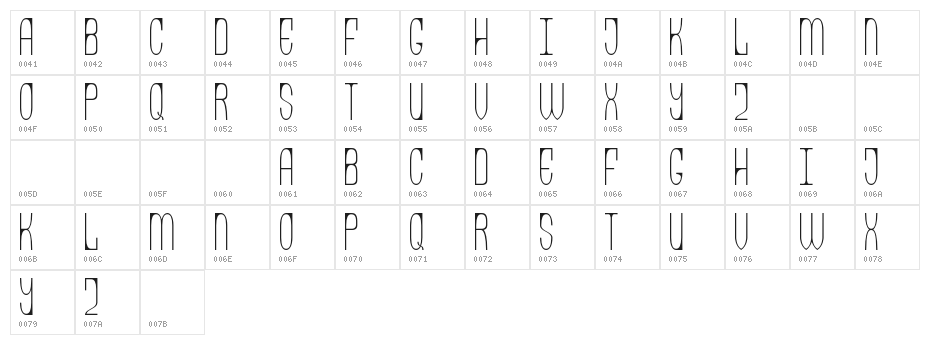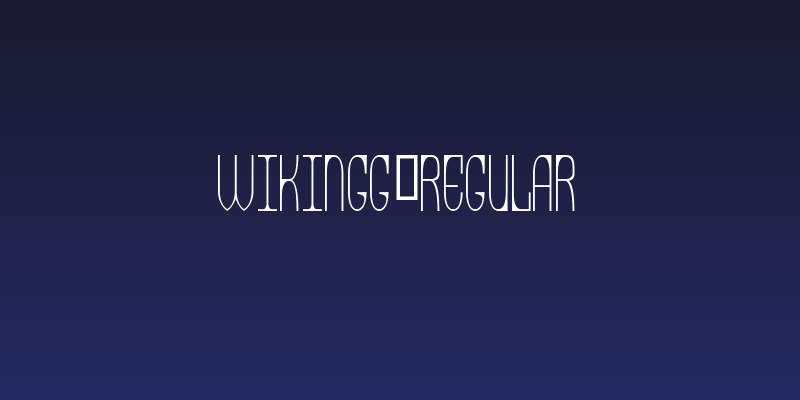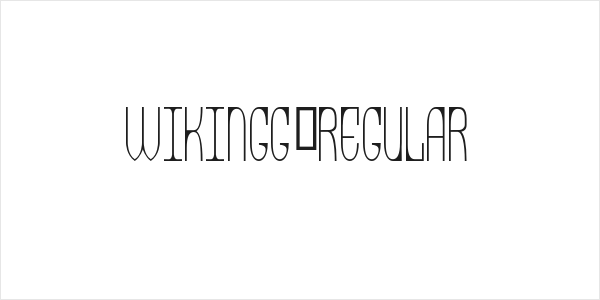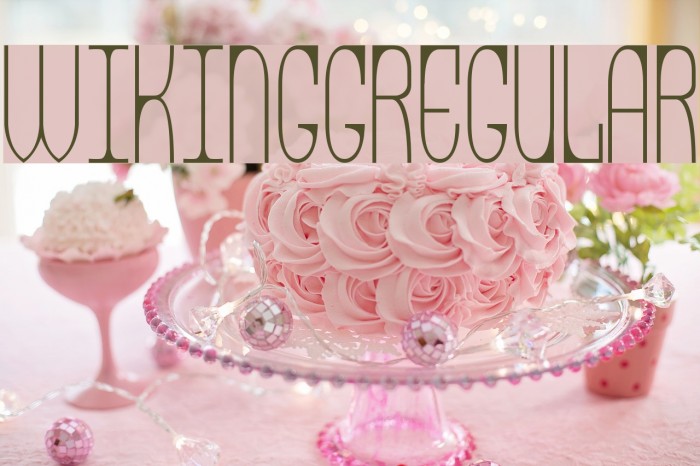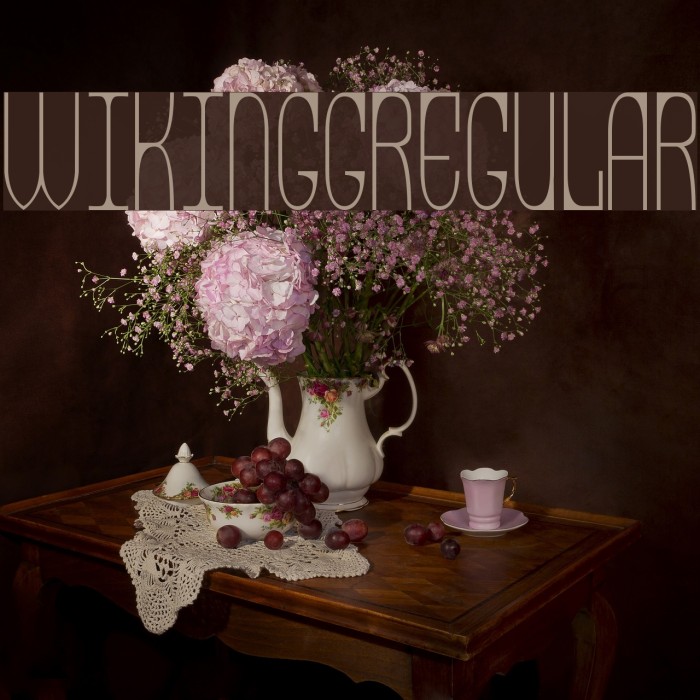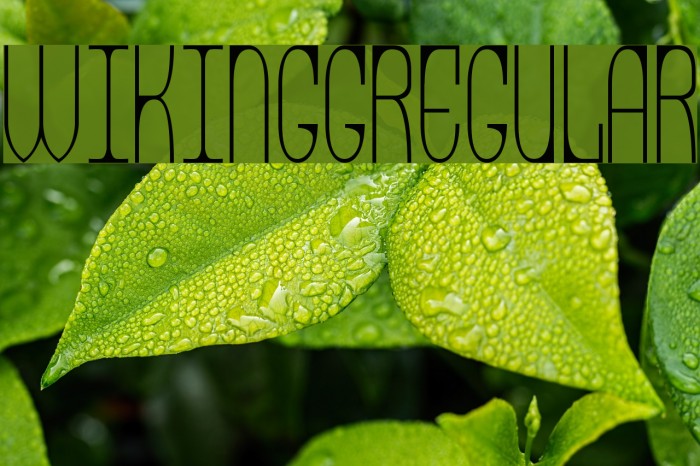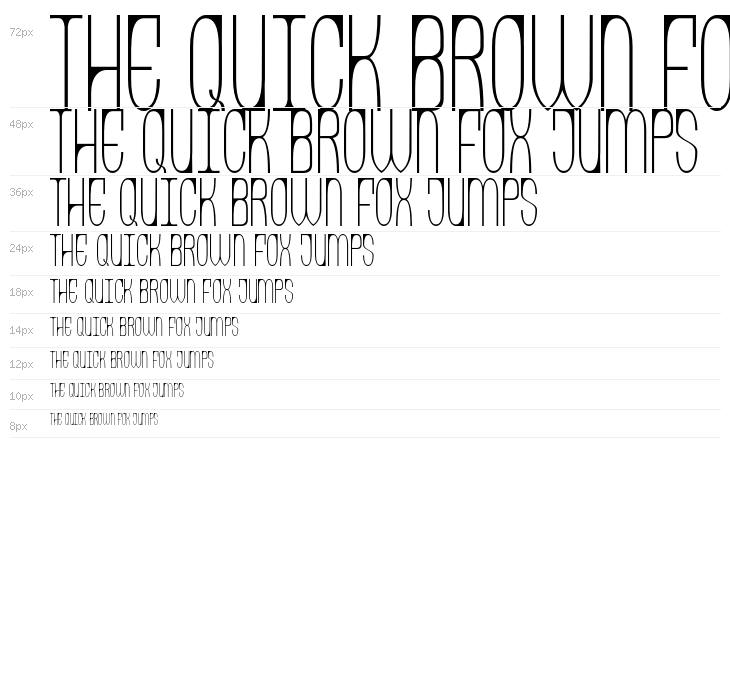
Wikingg-Regular Font
Wikingg-Regular Description
This font features a unique and modern design with elongated, narrow characters that create a striking visual impact. The uppercase letters are tall and slender, with a consistent vertical emphasis, while the lowercase letters maintain a similar style, offering a cohesive look. The numbers and special characters follow the same design principles, ensuring uniformity across all elements. The font's distinct style makes it ideal for projects that require a bold and contemporary aesthetic.
| Proposed Projects | Ideal for branding, posters, and editorial design where a modern and bold statement is needed. |